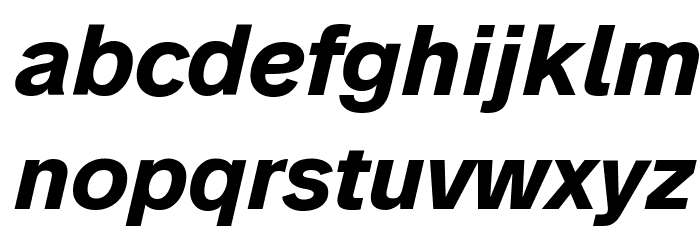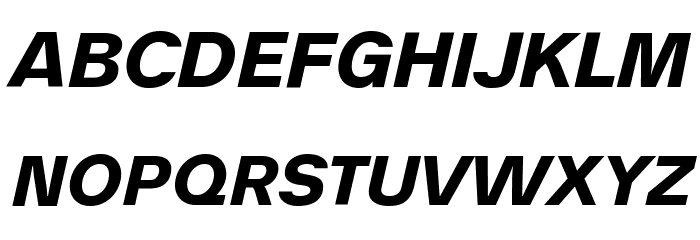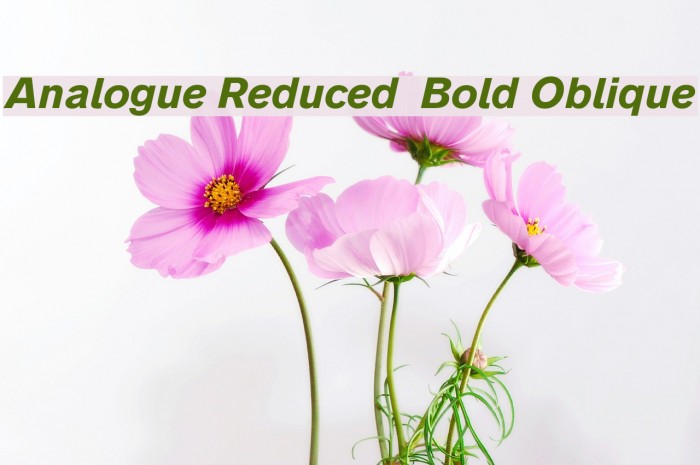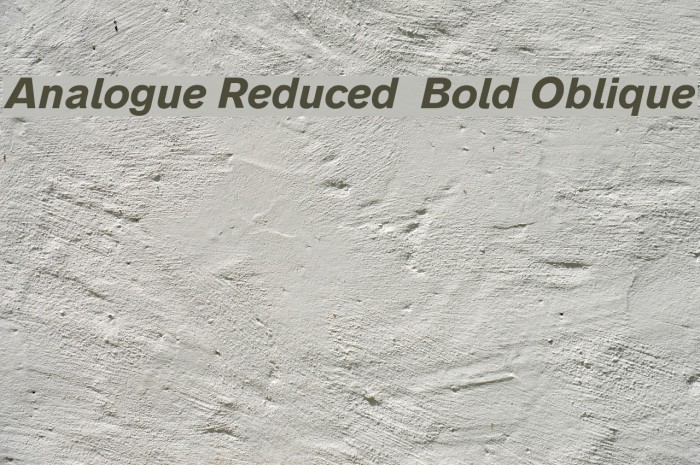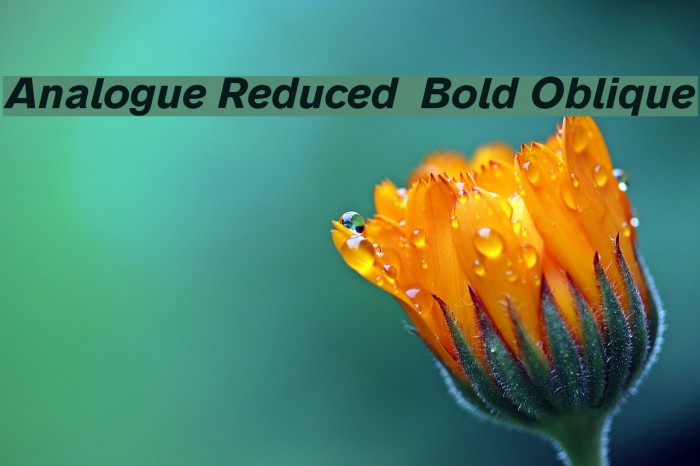
Analogue Reduced 76 Bold Oblique Font
This font exhibits a bold and oblique style, characterized by its strong and assertive presence. The letters are slanted, giving it a dynamic and forward-moving appearance. The strokes are thick, providing a robust and impactful look, suitable for making statements. The uppercase and lowercase letters maintain consistent weight, ensuring readability and uniformity. The numbers and special characters are designed to match the boldness of the alphabet, making them stand out effectively. This font is ideal for projects that require a modern and bold aesthetic.
A bold, oblique font with thick strokes and a dynamic appearance.
- Proposed Projects: Ideal for headlines, posters, branding, and advertising where a strong impact is needed.